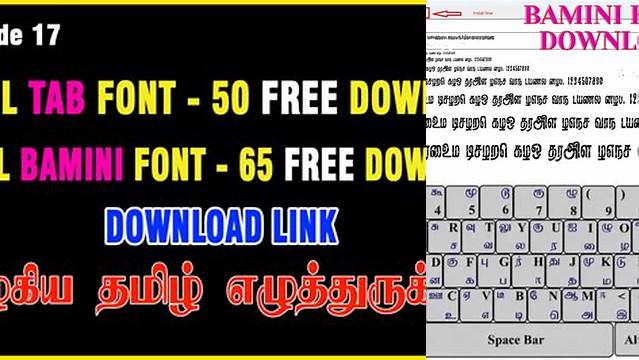
1. Introduction to the Bamini Tamil Font: A Classic Choice
So, what exactly is the Bamini Tamil font? It's a widely recognized and beloved font in the Tamil community. Developed originally for use on computers, it has made its way to mobile platforms, making it super easy for people to use the font on their phones. The Bamini font is characterized by its clean lines, readability, and distinct style, which are great for various purposes. The Bamini font is more than just a collection of letters; it represents a connection to the language and culture of Tamil Nadu. Because of its straightforward design, it ensures that Tamil text is easy to read on a variety of devices, including mobile phones. This font has become an indispensable tool for anyone who wants to express themselves in Tamil on digital platforms, from writing messages to creating content. The Bamini font's widespread adoption is a testament to its ability to meet the needs of a wide range of users. The font's design prioritizes clarity, making it a popular choice for digital communication, news, and creative projects. The Bamini Tamil font is also frequently used in educational materials and government communications, showing how versatile it is. Its ability to preserve the authenticity of the Tamil language while adapting to contemporary digital formats ensures its continuing significance for current and future generations.
Key Features of Bamini Font
The key features of the Bamini font are its simple and clear design, which makes it very easy to read. The font's consistent style enables it to be used for various applications, from casual texting to writing formal documents. Furthermore, the Bamini font is made for different screen sizes and resolutions. This ensures that the text remains clear and readable on mobile phones, tablets, and other devices. The font's ability to accurately depict Tamil characters is another feature that makes it a perfect choice for those who are interested in the Tamil language and culture. Moreover, its compatibility with different operating systems is a huge benefit. These characteristics make the Bamini Tamil font a popular choice for many users.
2. Why Choose Bamini Font for Your Android?
Why should you choose the Bamini Tamil font for your Android device, you ask? Well, first off, it gives your phone a unique look. Imagine seeing those classic Tamil characters pop up on your screen! That's the beauty of the Bamini font. It's not just about aesthetics, though. Using this font on your Android phone provides a seamless and immersive reading and writing experience. Whether you are reading news articles in Tamil, sending messages to friends and family, or working on a project, the Bamini font ensures that the content is easily understood and visually appealing. This font's widespread recognition ensures its accessibility across many platforms and devices, making sharing your content and information easy. Using Bamini font allows you to express your cultural identity on your device. By using Bamini font, you can embrace your heritage and show your support for the Tamil language and culture, wherever you go.
Benefits of Using Bamini Font
There are several benefits to using the Bamini font on your Android phone. The Bamini font improves the visual experience by making text more visually appealing and easier to read. This can greatly improve the overall user experience, making reading Tamil content more pleasurable. Also, the Bamini font helps keep the authenticity of the Tamil language, ensuring that the letters and characters are portrayed accurately. This is especially important for people who want to maintain the integrity of the language. Plus, the Bamini font is very versatile, making it appropriate for many applications, including messaging, document writing, and social media posting. The ability to download the Bamini font for free further enhances its appeal. This means you can improve the appearance of your Android device without spending any money. These benefits make the Bamini font a smart choice for people who want to improve the appearance and functionality of their mobile devices.